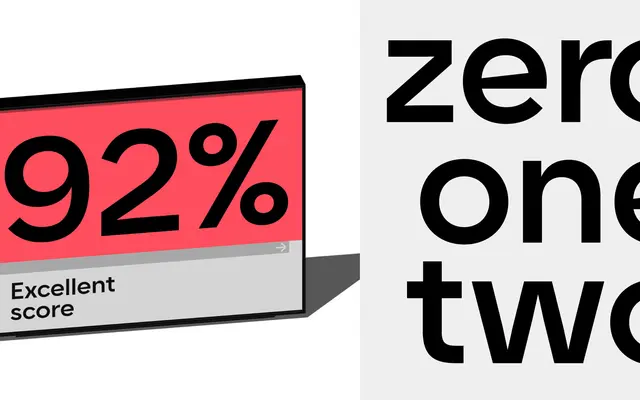
Karst
Type Forward · Stan Partalev and Mirela Belova
A geometric sans serif with nine weights, italic variants and a variable font, covering Latin and Cyrillic with a strong OpenType feature set.
Designed by Stan Partalev and Mirela Belova, Karst runs from Hairline to Black across nine weights with corresponding italics and a variable font. Cyrillic coverage includes localised forms and two stylistic sets for oval Cyrillic letterforms, while the Latin supports ordinals, fractions, small figures, case-sensitive punctuation and multiple ligature sets. The foundry positions it as contemporary and edgy, making it serviceable for editorial and branding work that needs a clean geometric base with some personality.
The foundry explicitly describes Karst as a geometric sans serif; its construction and contemporary edgy character align with the geometric sans subcategory.